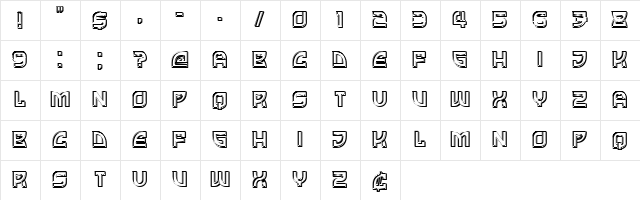
Whether Regular
Design Context for Whether Typeface
Whether is a composed and adaptable typeface that performs quietly and consistently across a wide range of design contexts.